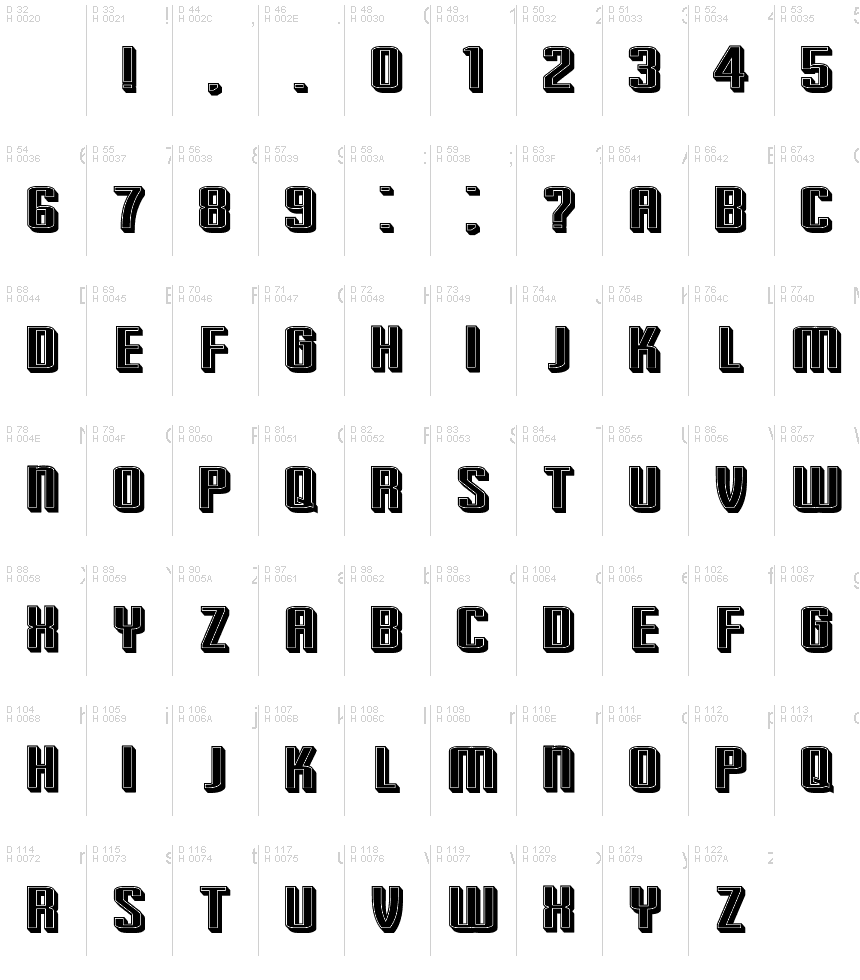
Ruanda Regular
Ruanda, designed by Vladimir Nikolic, is a striking display font with a 3d retro style. Its semi-bold weight and condensed width make it perfect for eye-catching headlines and titles that need to pack a punch. This font is suitable for a wide variety of projects, from vintage-inspired branding to futuristic advertisements. Use it on posters, packaging, or even in video game design for an unforgettable impact. With its unique and memorable look, Ruanda is sure to leave a lasting impression on any project it's used in.
It comes in Regular and Light version!